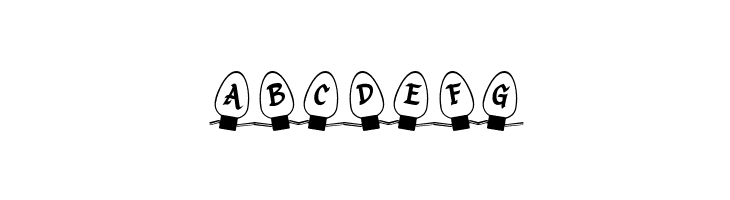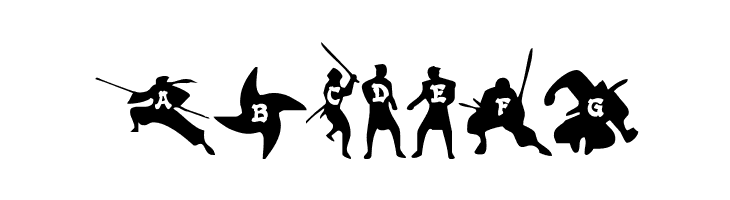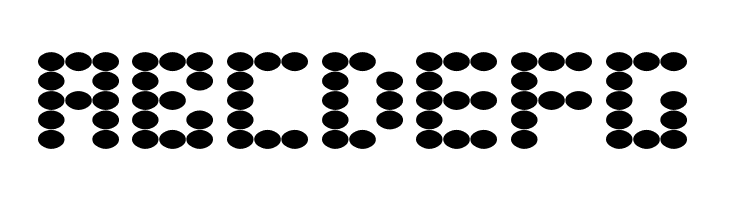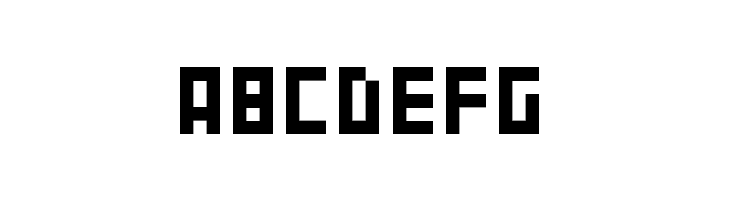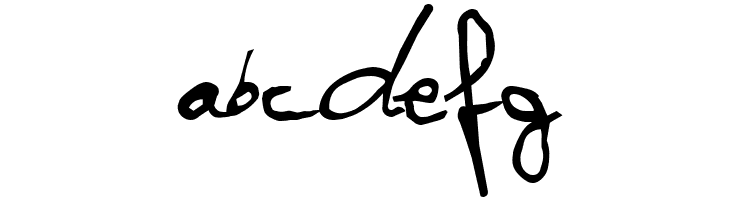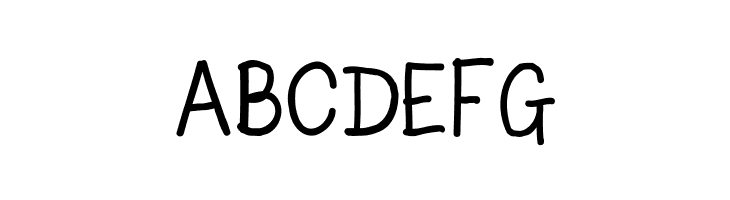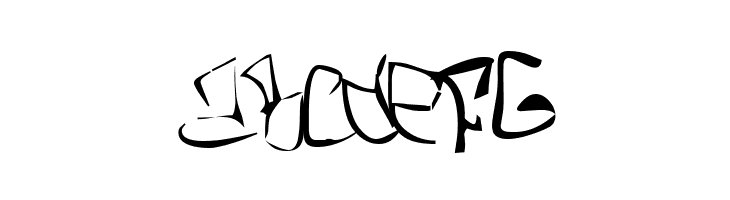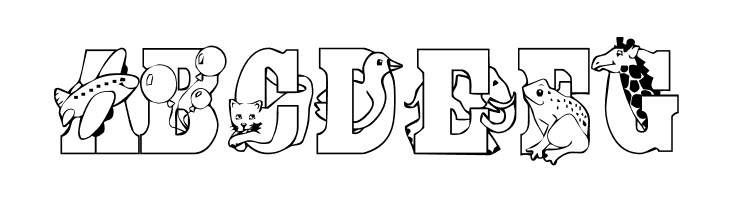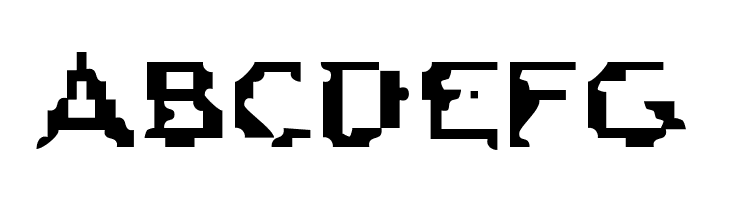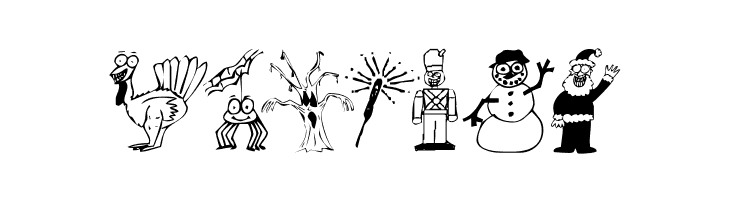
A festive font styled like Christmas lights, perfect for holiday themes.
A dynamic, ninja-themed decorative font with action-packed silhouettes.
A lively and expressive handwritten font with varied stroke thickness.
A playful, childlike font with uneven lines and a whimsical style.
A bold, graffiti-inspired font with dynamic, freeform strokes.
A bold, jagged font with a rebellious, distressed aesthetic.
A bold, dripping font perfect for horror themes.
A bold set of computer-themed dingbats featuring various tech icons.
A vintage typewriter-style font with a slightly distressed look.
A decorative font styled like vintage film strips, ideal for cinematic themes.
A bold, playful font with rounded, bubbly characters perfect for fun and nostalgic designs.
A bold, decorative font with vintage flair and intricate detailing.
A bold, hand-drawn font with an expressive, distressed style.
A playful font with bold, rounded letters featuring decorative bunny ears.
A Halloween-themed decorative font with playful and spooky elements.
A bold, decorative font with Celtic influences and angular serifs.
A segmented, digital-style font with a futuristic and technical appearance.